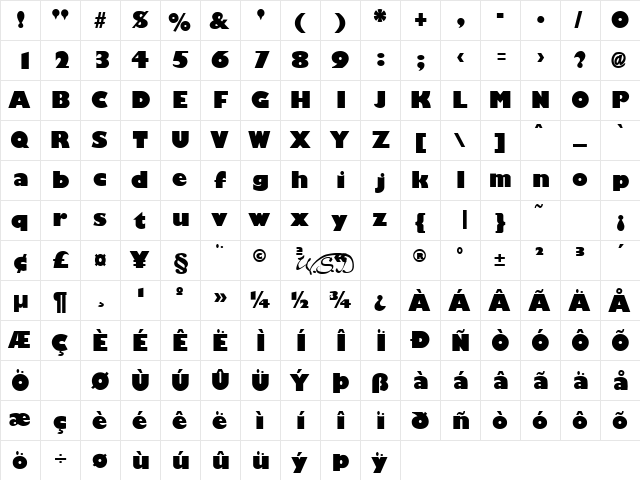
Giligan Black Regular
Design Context for Giligan Black Typeface
Giligan Black offers clean, dependable letterforms without strong stylistic allegiance, making it a practical choice for designers who need flexibility.